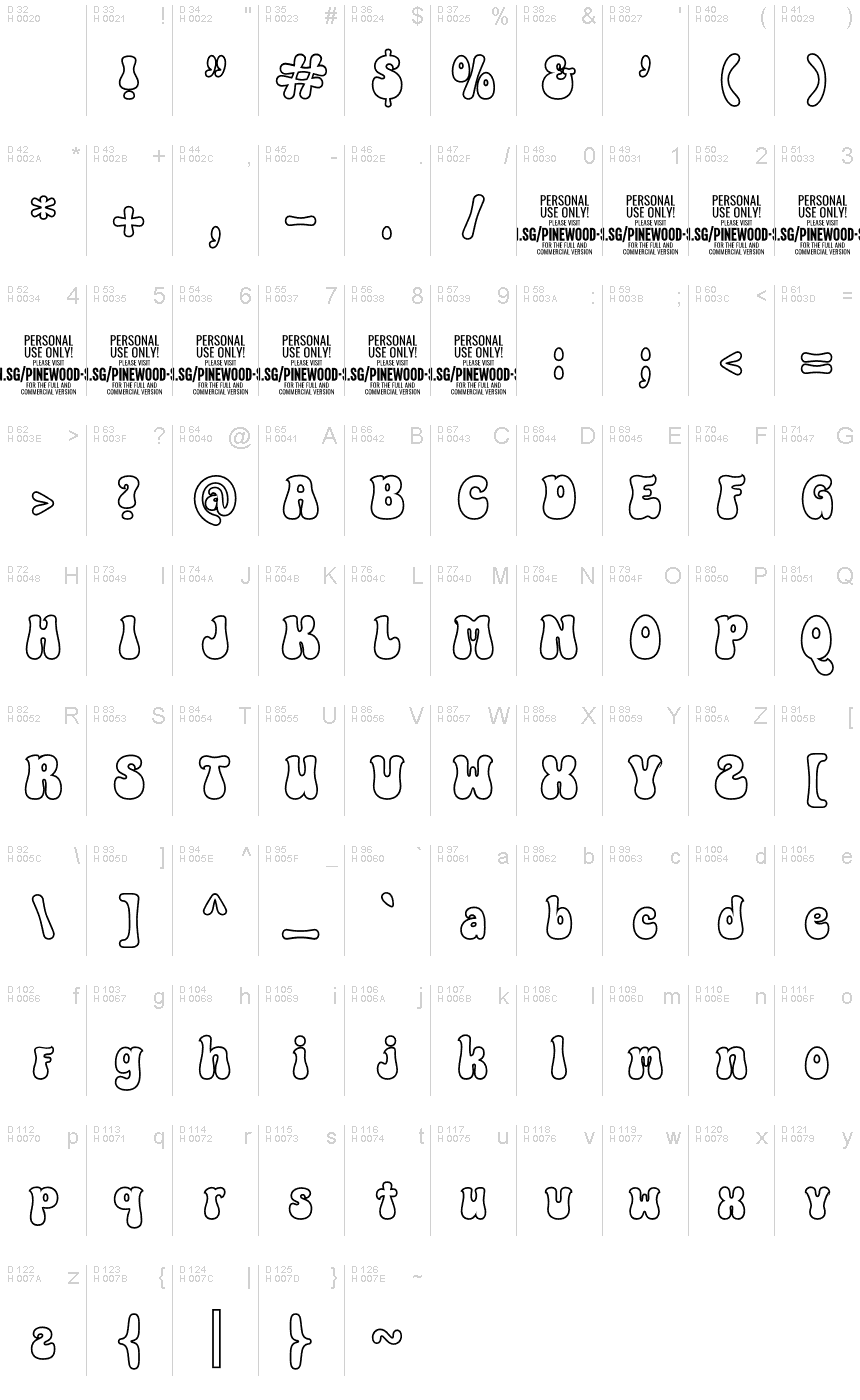
Pinewood Outline PERSONAL USE Italic
Pinewood Outline Italic is a groovy display font from the Pinewood family designed by Mans Greback. Its extra-bold weight and outlined style make it perfect for creating eye-catching headlines, posters, and logos that demand attention. The italicized version of this typeface adds a touch of elegance and sophistication to any design project, making it ideal for fashion branding or wedding invitations. With its unique style, Pinewood Outline Italic can also be used in retro-themed projects such as vintage advertisements or 70s-inspired album covers. Let your creativity run wild with this versatile font!
Pinewood Outline is a funky, bold, and playful typeface that encapsulates the retro, hippie spirit with a touch of graffiti and childish charm.